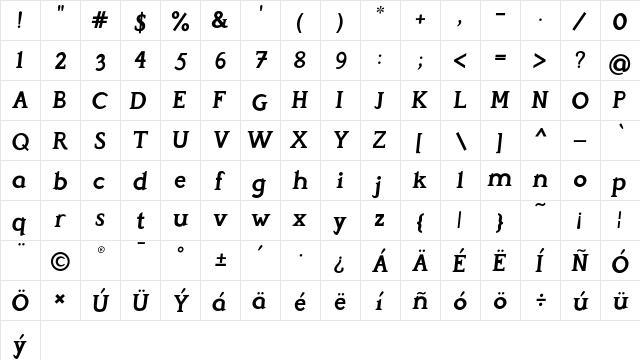
Perspicacious Italic Bold
Design Context for Perspicacious Italic Typeface
Perspicacious Italic is a composed and adaptable typeface that performs quietly and consistently across a wide range of design contexts. The dynamic lean of this cut emphasises speed and emphasis in any layout. Its bold stroke weight gives it real presence on the page.